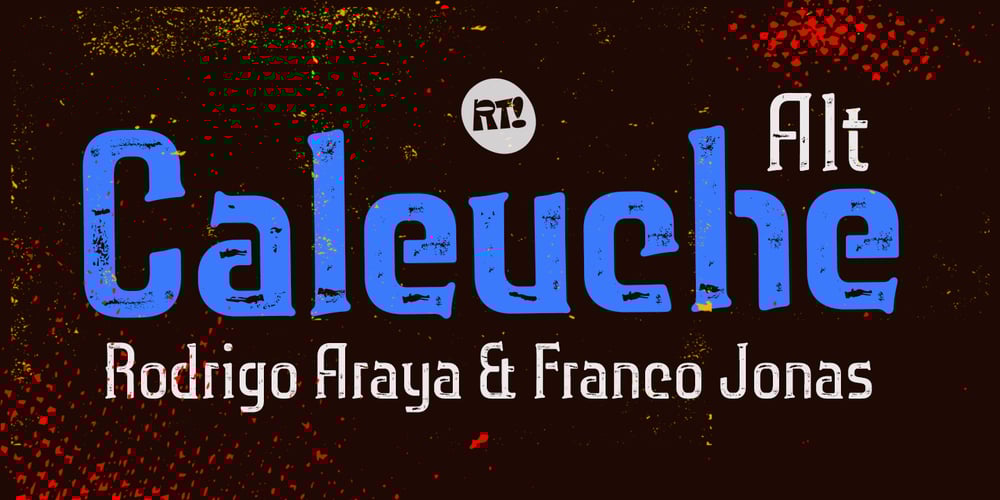
Caleuche Alt Font Family was designed by Rodrigo Araya Salas, Franco Jonas Hernández and published by RodrigoTypo. Caleuche Alt contains 12 styles and family package options. Caleuche Alt is a typeface which contains different weights and styles, especially for action, Comics, horror or suspense titles, in addition to containing alternatives and ligatures